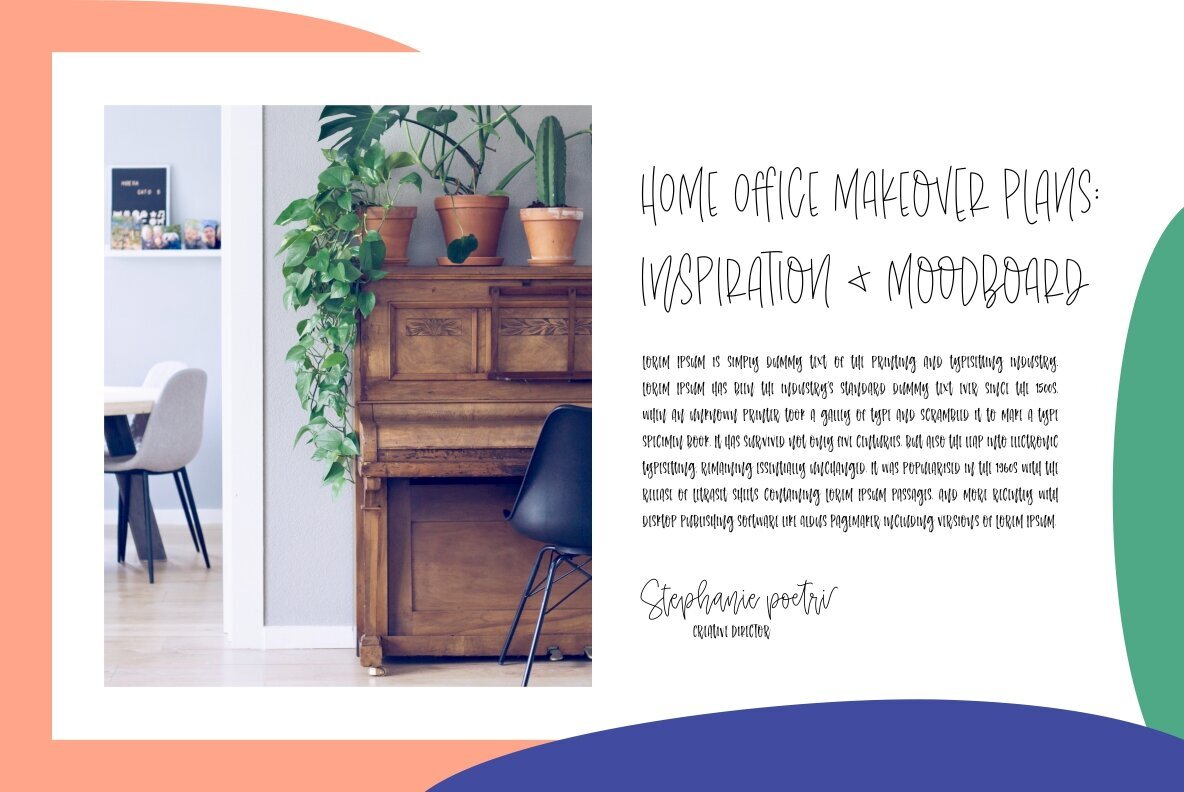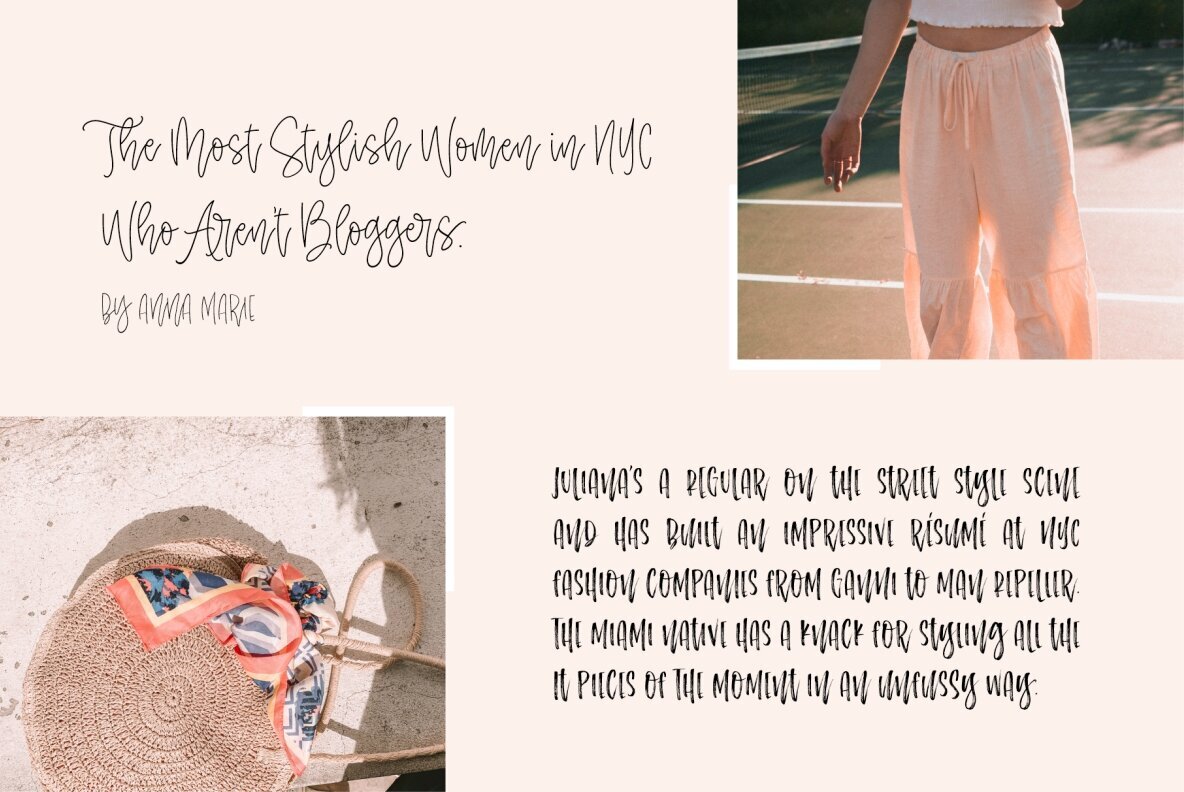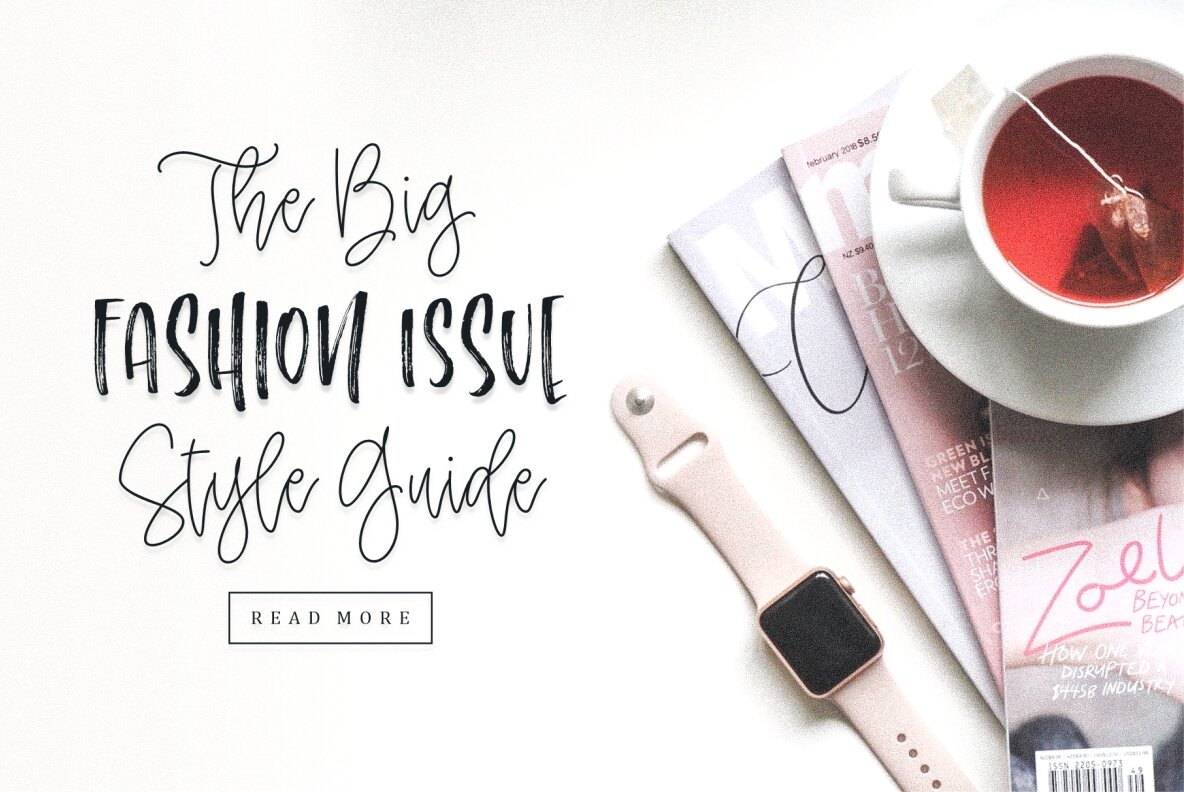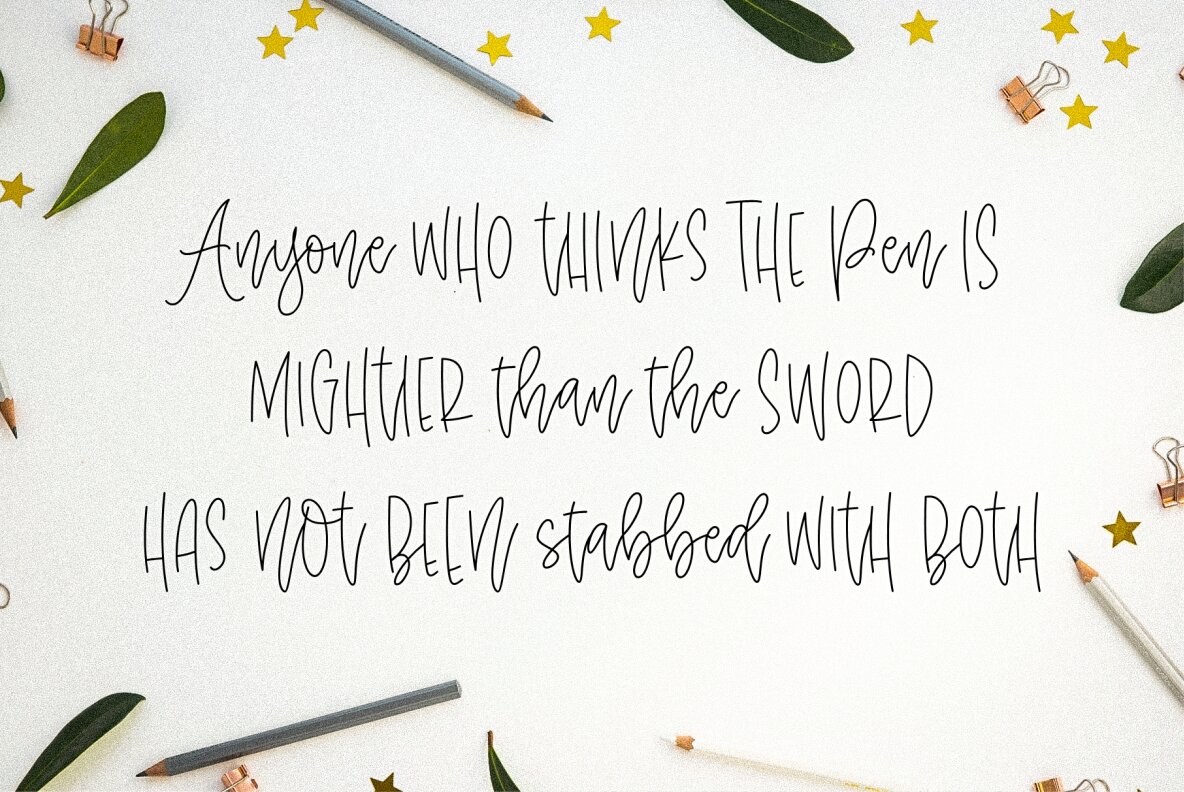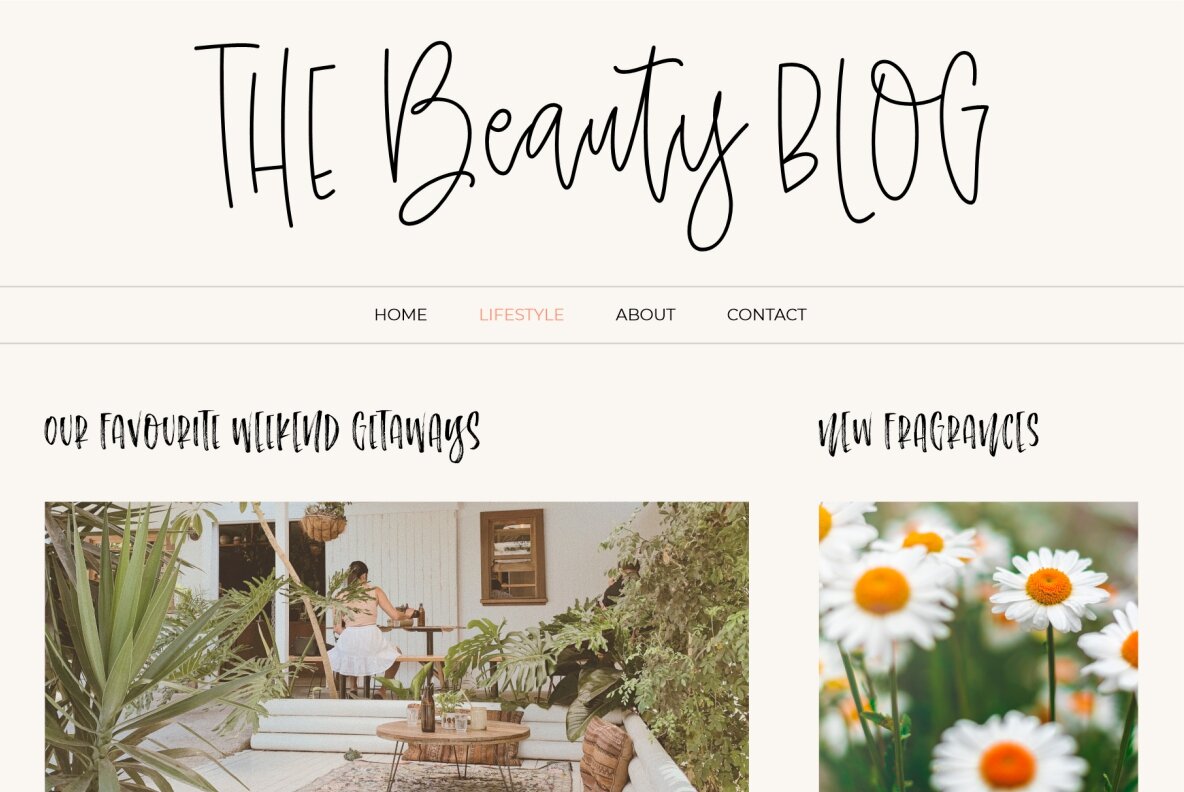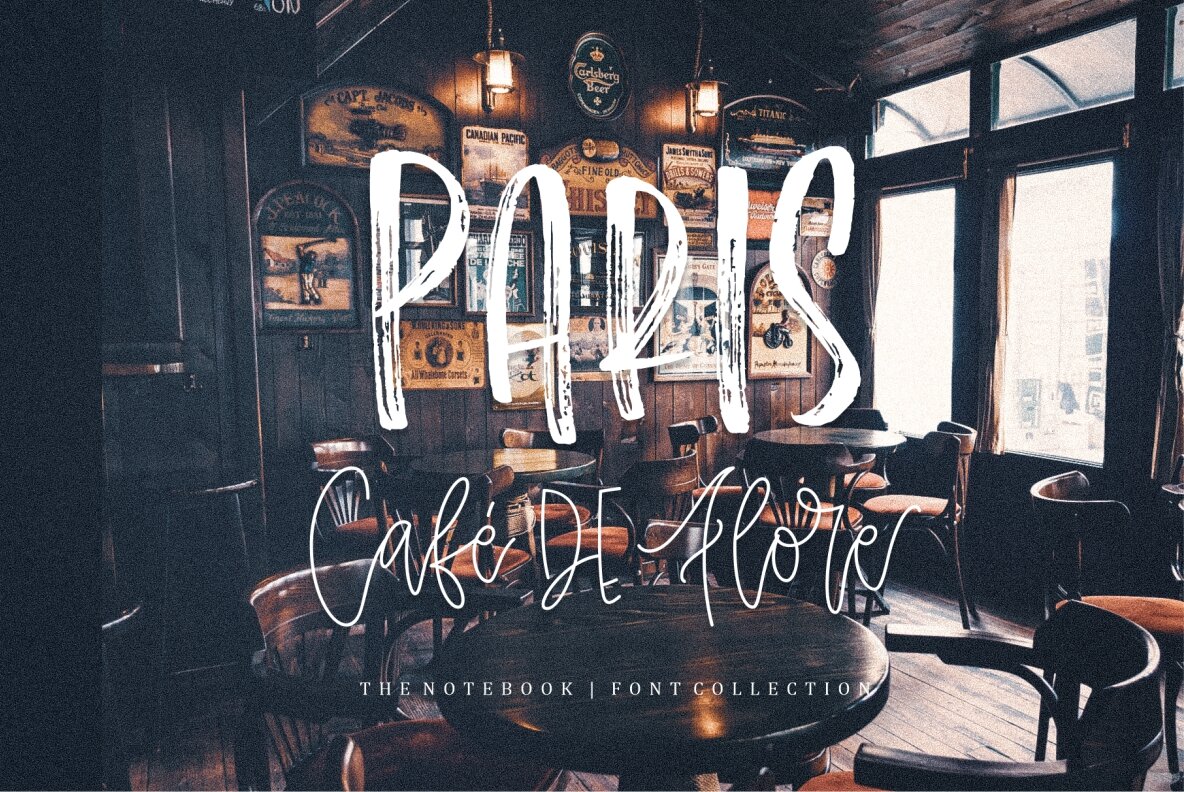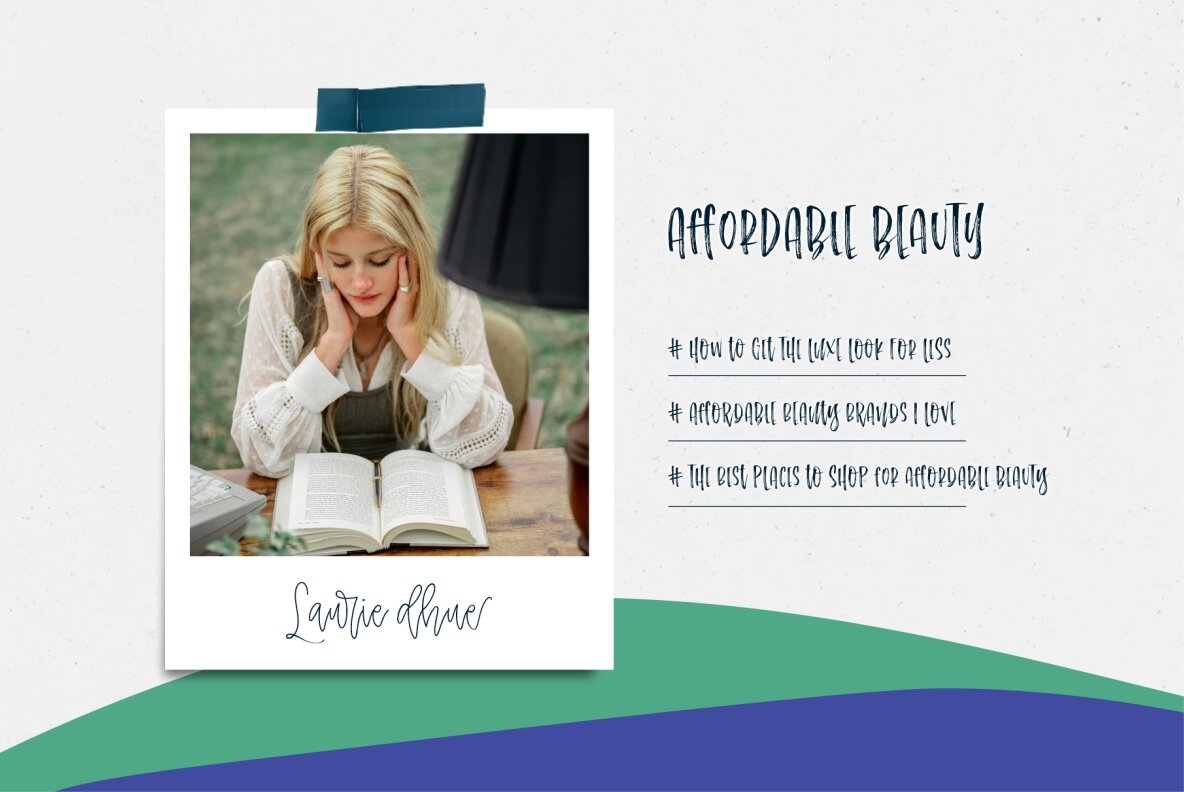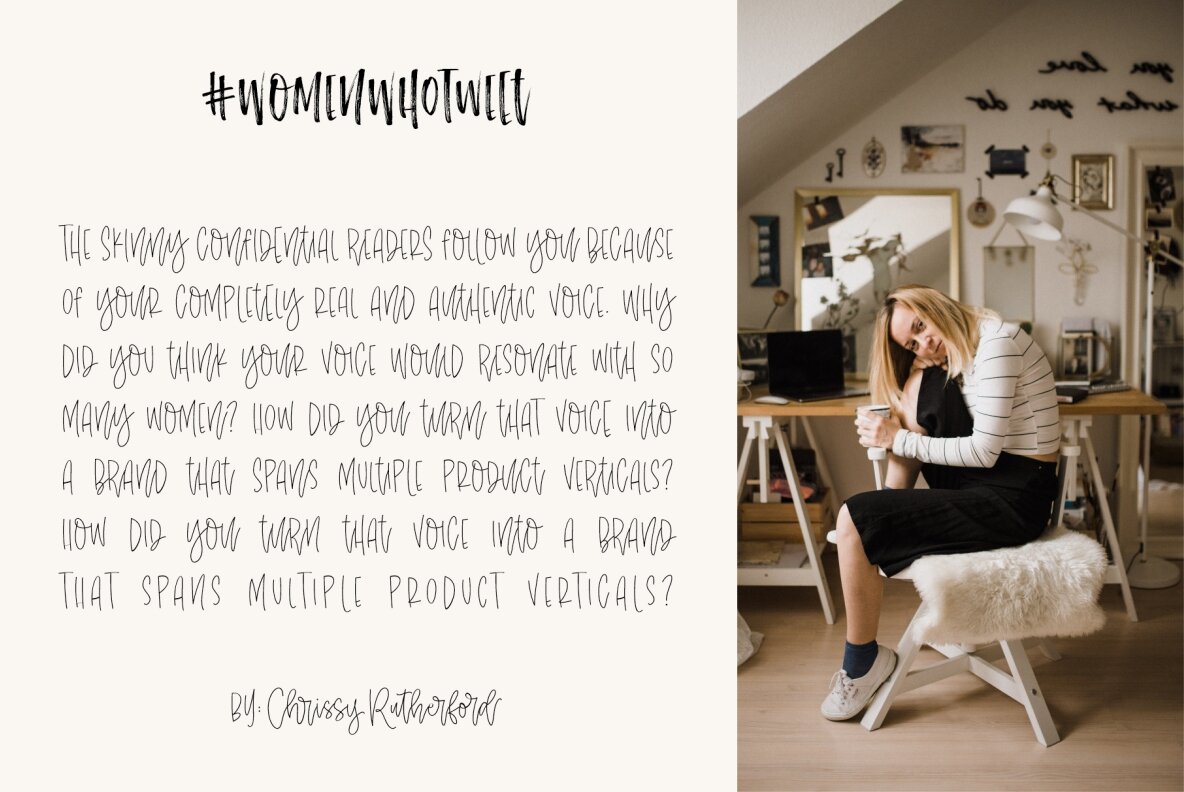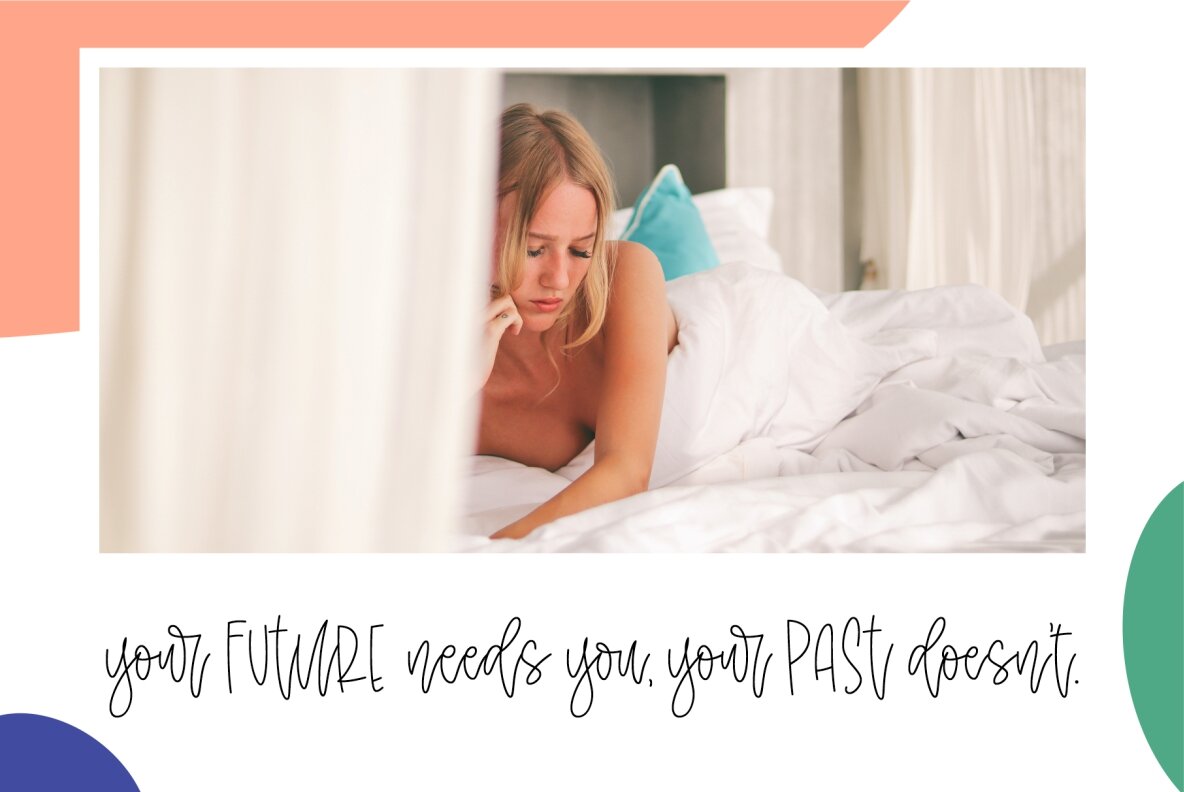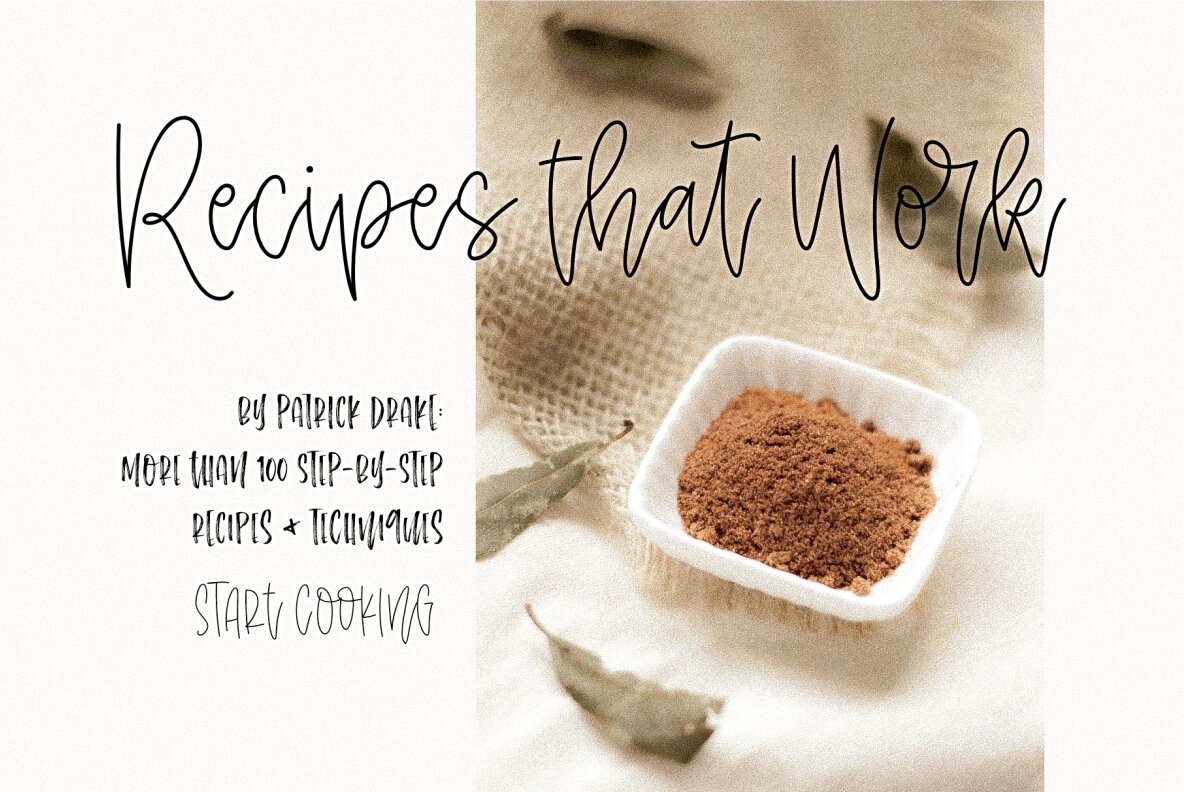
The Notebook Font
Unleash your creative potential with The Notebook Collection Fonts! With this amazing pack of three fonts, Script, Brush and Sans, you can have hours of fun creating unique and eye-catching projects. Ideal for labels, quotes, posters, book covers, scrapbooking and more - the possibilities are endless. Get ready to breathe new life into your projects with The Notebook Collection Fonts - get yours at YouWorkForThem today!
The Notebook Collection features:
- A full set of upper & lowercase characters
- Numbers & punctuation
- A full set of upper & lowercase characters (Alternates)
- Accented characters
- PUA Encoded Characters – Fully accessible without additional design software.